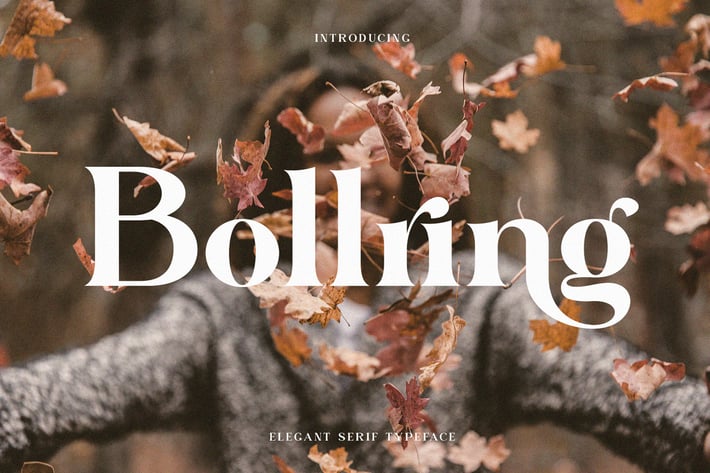
Bollring Elegant Serif Typeface
Bollring Modern Serif Typeface inspired by the famous minimalist logo perfect for the purposes of designing templates, brochures, videos, advertising branding, logos, invitation, layout design, elegant crafting, beauty design and other